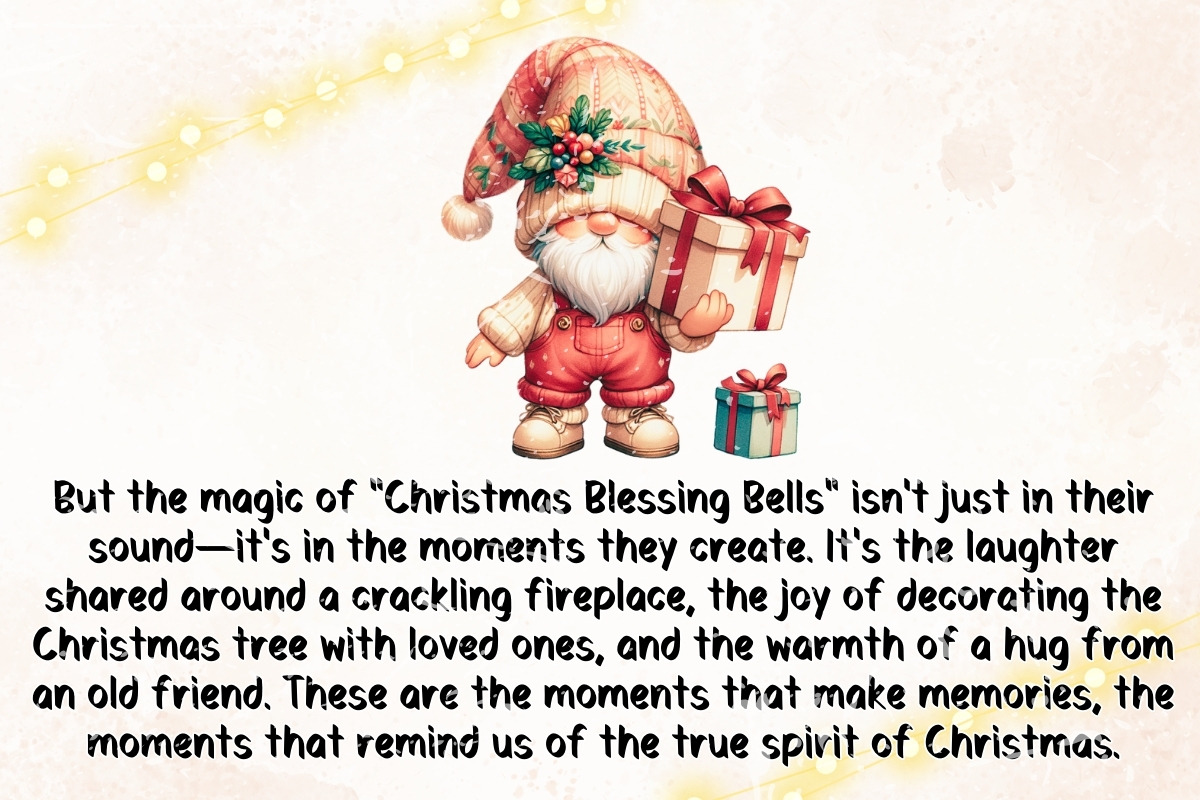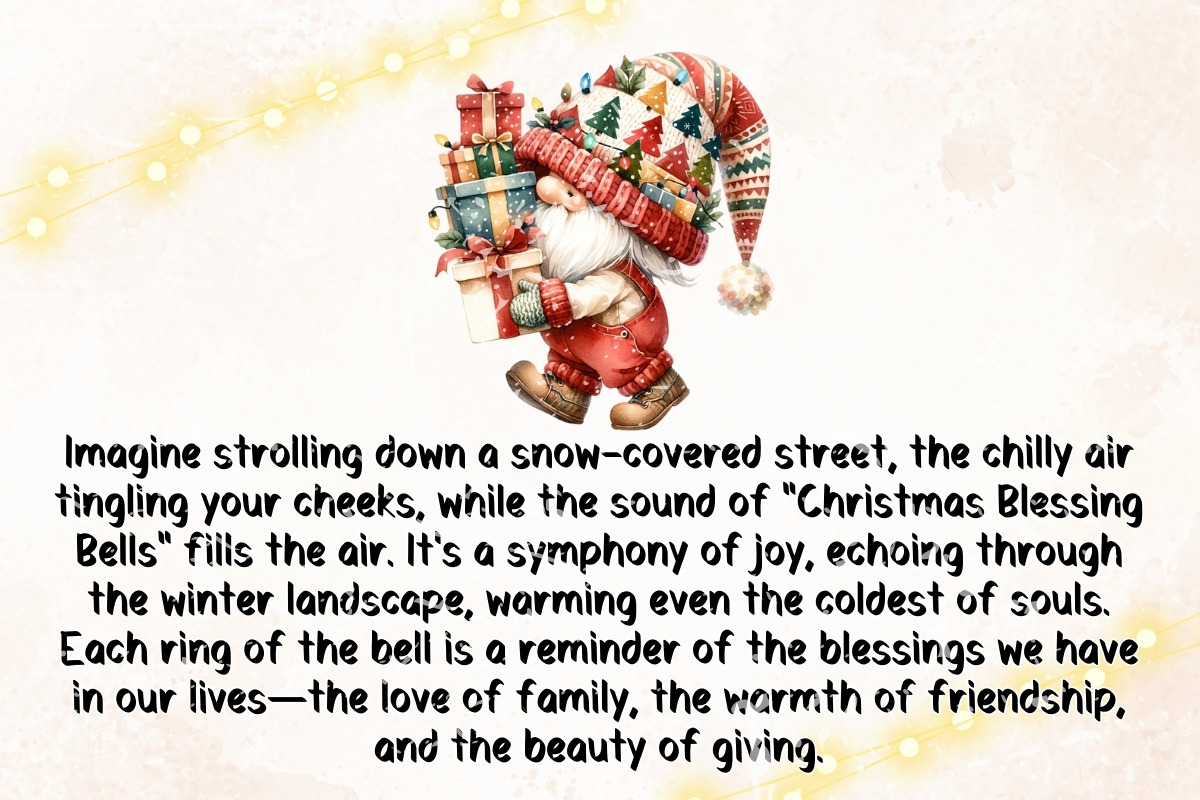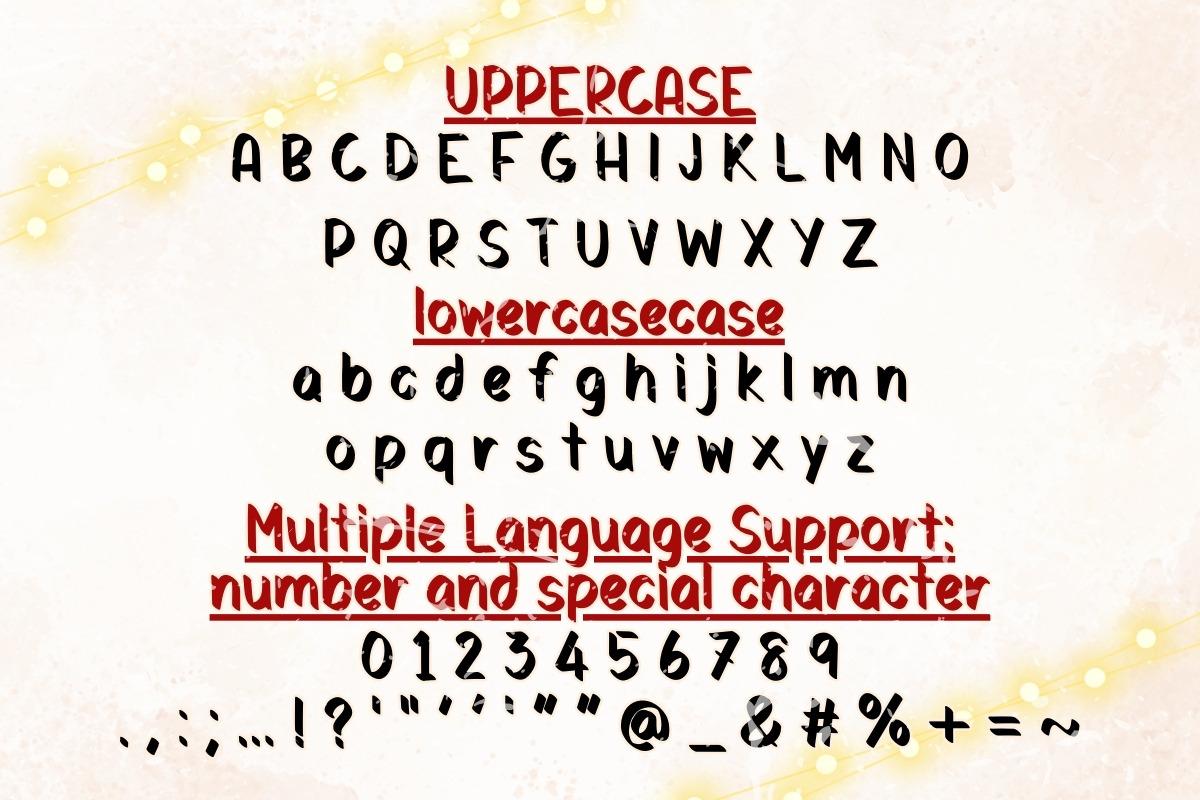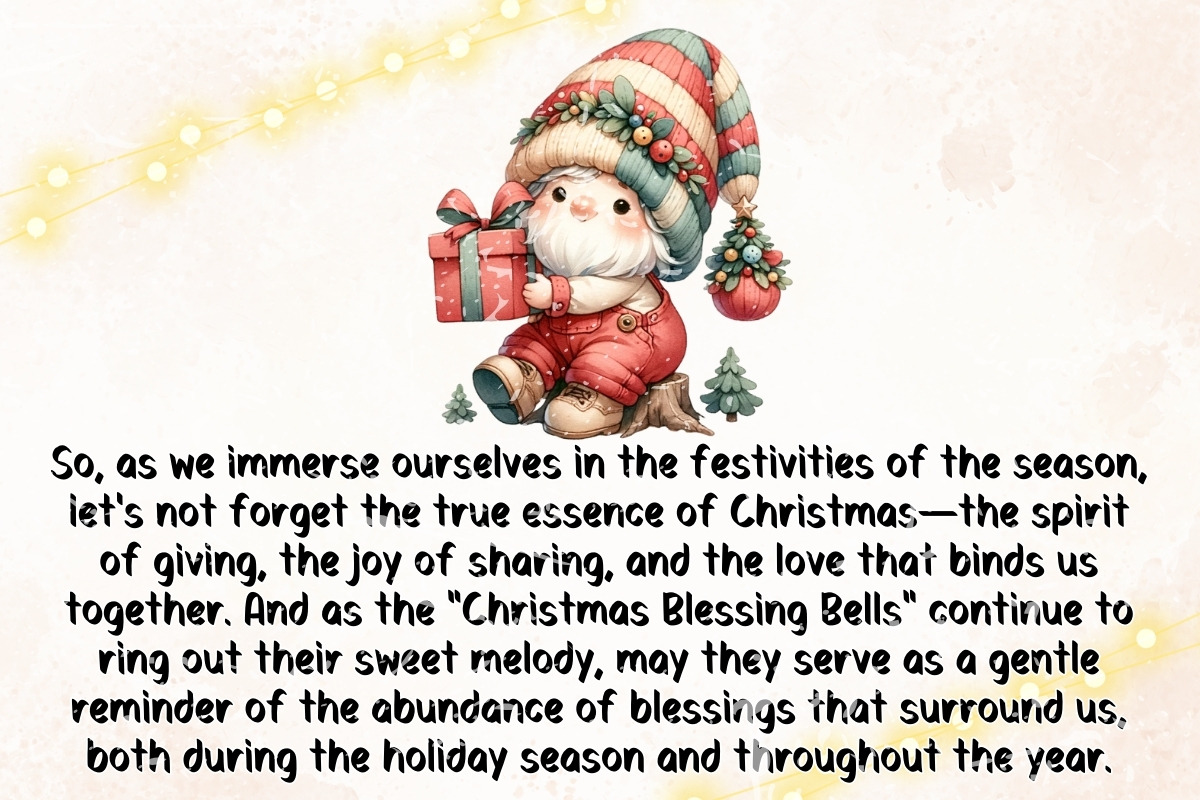
Christmas Blessing Bells - Handwritt
"Indulge in the charm of handwritten elegance with our font, Christmas Blessing Bells. This delightful typeface captures the essence of whimsy and warmth, making every word dance across the page with grace. Perfect for adding a touch of festive cheer to your holiday cards, invitations, or any project that craves a sprinkle of Christmas magic. Let your creativity sparkle with the enchanting strokes of Christmas Blessing Bells."